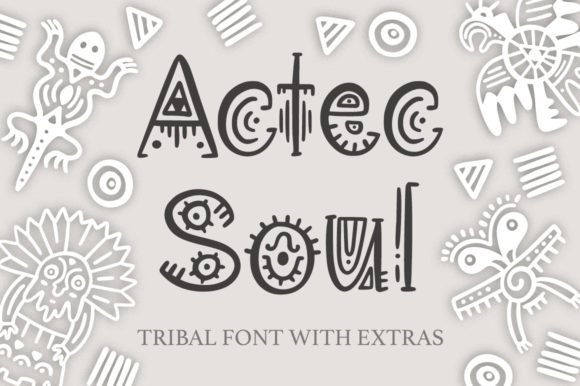
Welcome to the realm of Aztec Soul Font, the epitome of artistic expression in the world of typography. Prepare to be mesmerized as you embark on a journey through ancient Aztec culture, where intricate patterns and harmonious curves intertwine to create a breathtaking display font.
Step into a world steeped in history and artistry, where the Aztec Soul Font reigns supreme. This exquisite creation by Red Ink is a testament to the enduring legacy of Aztec craftsmanship, meticulously crafted to capture the essence of their sacred symbols and ornaments. Each letter is adorned with intricate textures, reminiscent of ancient carvings found in hidden temples, inviting you to explore the depths of this extraordinary font.
Go beyond the ordinary with Aztec Soul Font. It's not merely a collection of characters; it's a gateway to a universe of creativity, allowing you to unleash your imagination and transform your designs into captivating works of art. From striking logos and eye-catching posters to enchanting invitations and vibrant social media posts, Aztec Soul Font will elevate your projects to new heights, leaving a lasting impression on all who behold them.
Unleash the power of Aztec Soul Font and witness the transformation of your creative vision into reality. Let your designs resonate with the heartbeat of ancient civilizations, capturing the essence of mystery and wonder that lingers within the depths of Aztec culture. Embrace the allure of Aztec Soul Font and embark on a journey of limitless creativity.